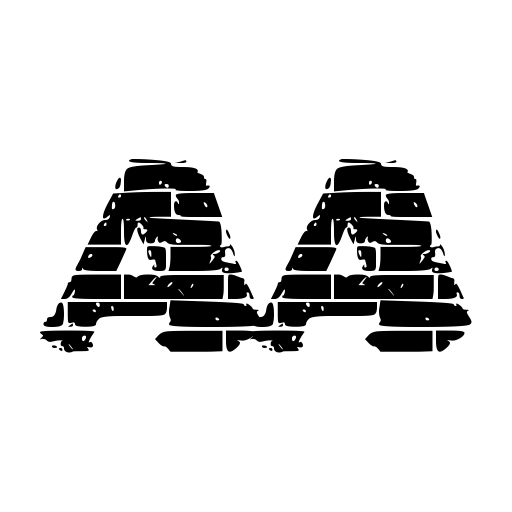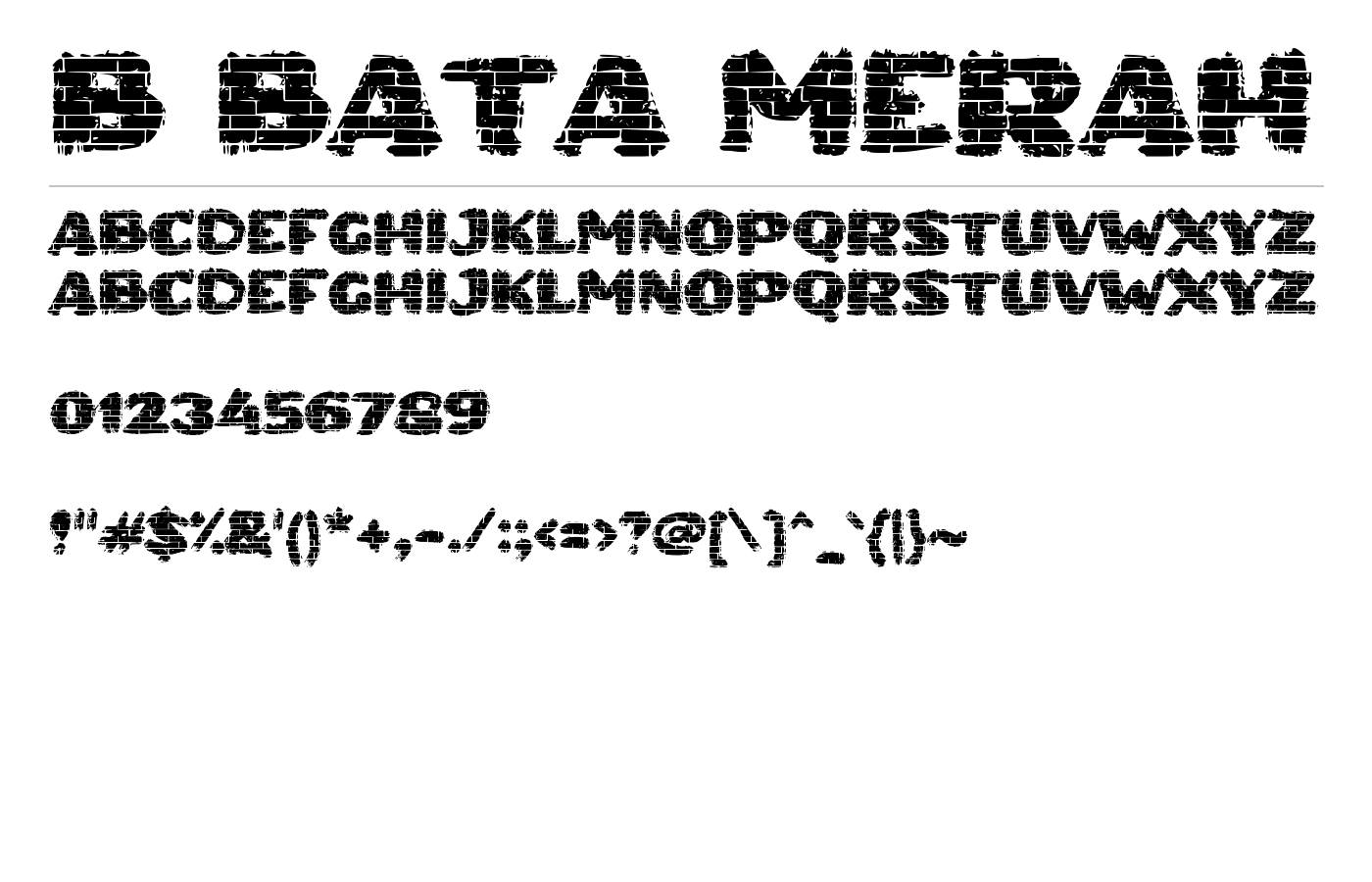
B Bata Merah is a bold, stencil-inspired sans serif font with a distressed, rough texture that evokes a rugged, industrial feel. Its strong, blocky letterforms and irregular breaks create a striking, urban aesthetic, making it ideal for eye-catching headlines, posters, and branding that seeks a gritty, unconventional edge. This font works best in designs that want to convey strength, toughness, and a raw, streetwise attitude.
b Bata Merah Font